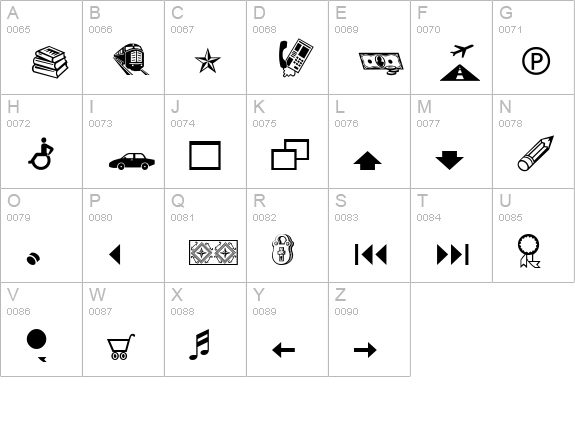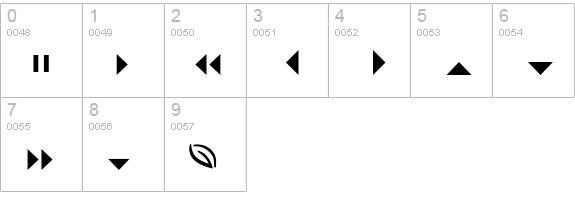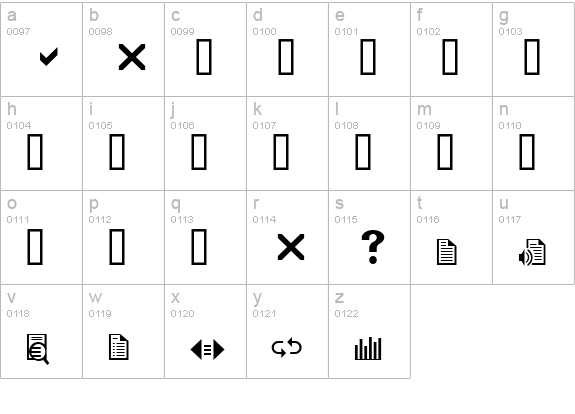
Bookdings Font Details
Bookdings font is a visually appealing and versatile typeface that combines classic book-inspired symbols with a modern twist. Designed for those who appreciate the charm of old-fashioned typography, Bookdings offers a wide range of symbols and icons that can be used to enhance your design projects. From decorative ornaments to whimsical illustrations, this font adds a touch of elegance and creativity to any text or graphic. What sets Bookdings apart is its unique blend of vintage aesthetics and contemporary design elements. Whether you're working on a book cover, website layout, or branding materials, this font will help you stand out and make a lasting impression. With its intricate details and intricate patterns, Bookdings is perfect for adding a touch of sophistication to your projects. The best part? Bookdings font is completely free to download at FontsMarket.com. Now you can access this beautiful typeface and create stunning designs without breaking the bank. So why wait? Download Bookdings today and let your creativity soar with this versatile and eye-catching font.